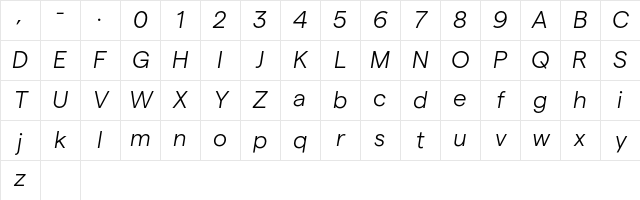
Complete Matter TRIAL Light Italic glyph index. Displaying only characters natively supported by Matter TRIAL Light Italic font.
Matter TRIAL is a composed and adaptable typeface that performs quietly and consistently across a wide range of design contexts. The slanted form adds forward momentum and visual energy. Its slender proportions lend an understated elegance to any composition.
Pro Tip: Use Matter TRIAL for emphasis, pull quotes, and subheadings where its slanted energy can add rhythm to the layout.